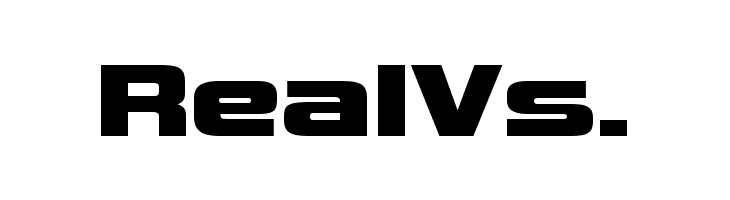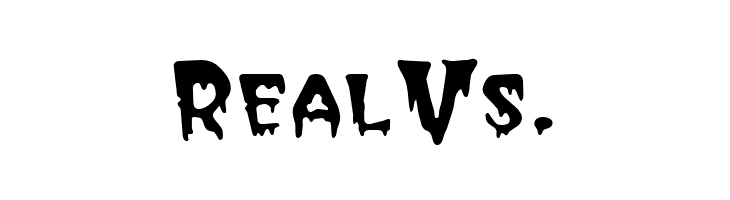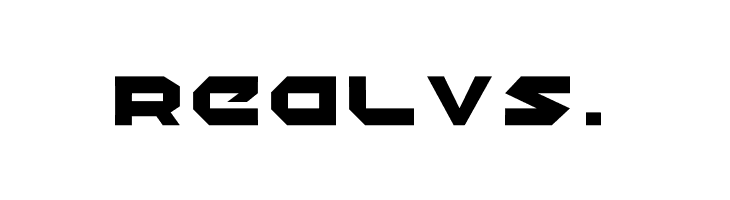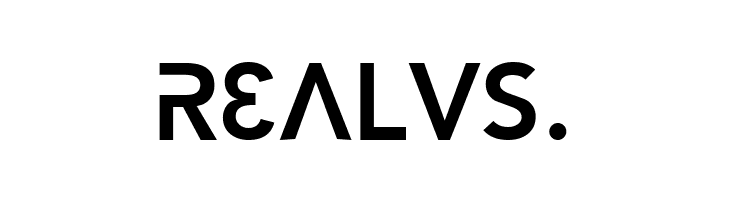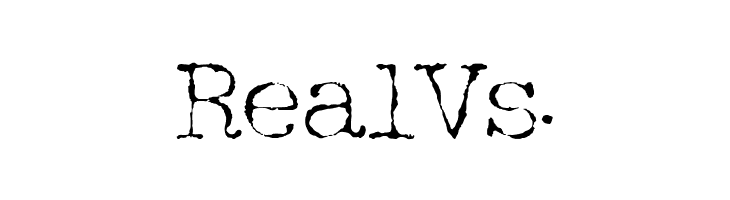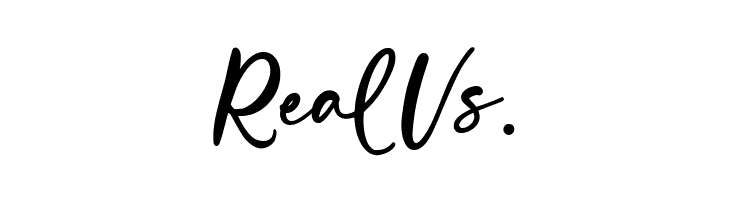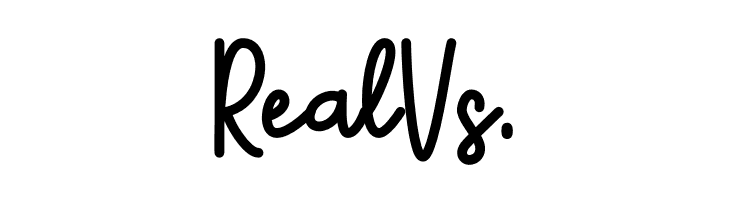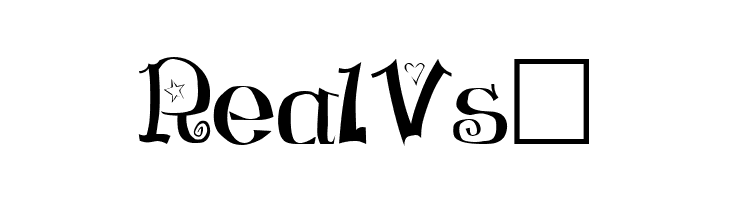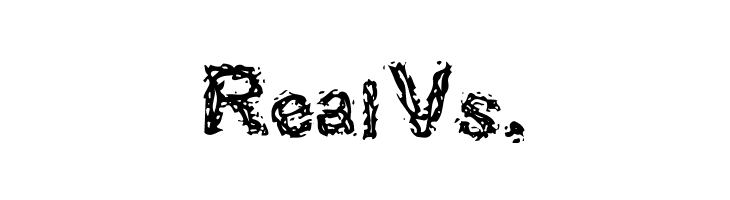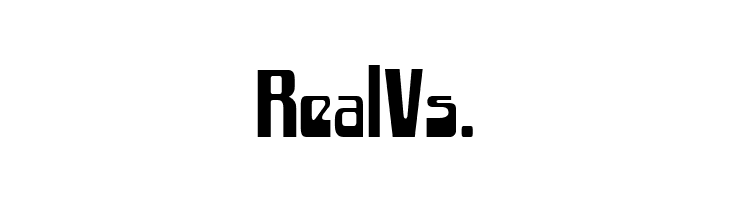
A bold, geometric font with high contrast and strong visual impact.
A modern, clean sans-serif font with uniform stroke width and minimalistic design.
A decorative and artistic font with bold, whimsical characters.
A whimsical and decorative font with artistic curves and flourishes.
A decorative font with cartoon faces representing each character.
A bold, expressive brush-style font with dynamic, handcrafted strokes.
A bold, playful handwritten font with a brush-like texture and lively appearance.
A flowing, cursive font with elegant, interconnected characters.
A vintage, textured serif font with a distressed, typewriter-like appearance.
Halloween-themed border font with spooky illustrations.
Playful handwritten font with tall uppercase and connected lowercase script.
A bold, geometric font with angular strokes and a modern aesthetic.
A bold, angular font with a rugged, industrial style.
A bold, angular font with a futuristic and aggressive design.